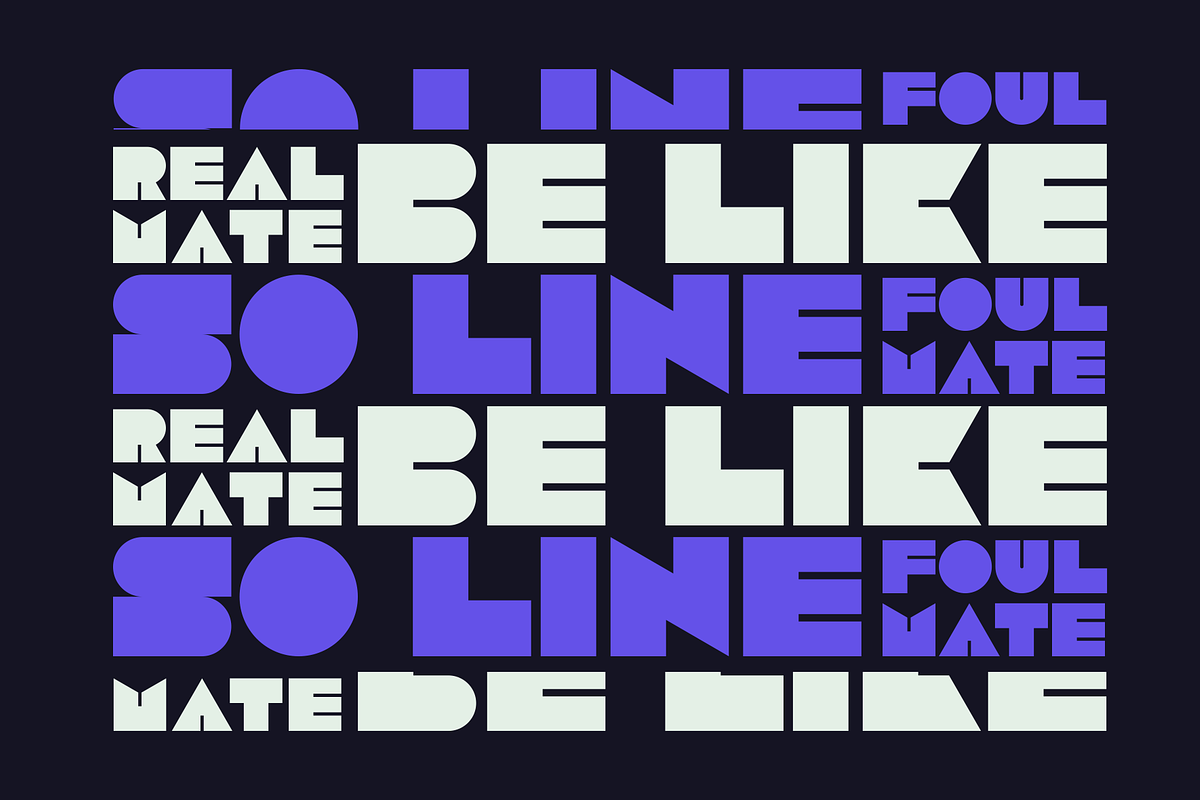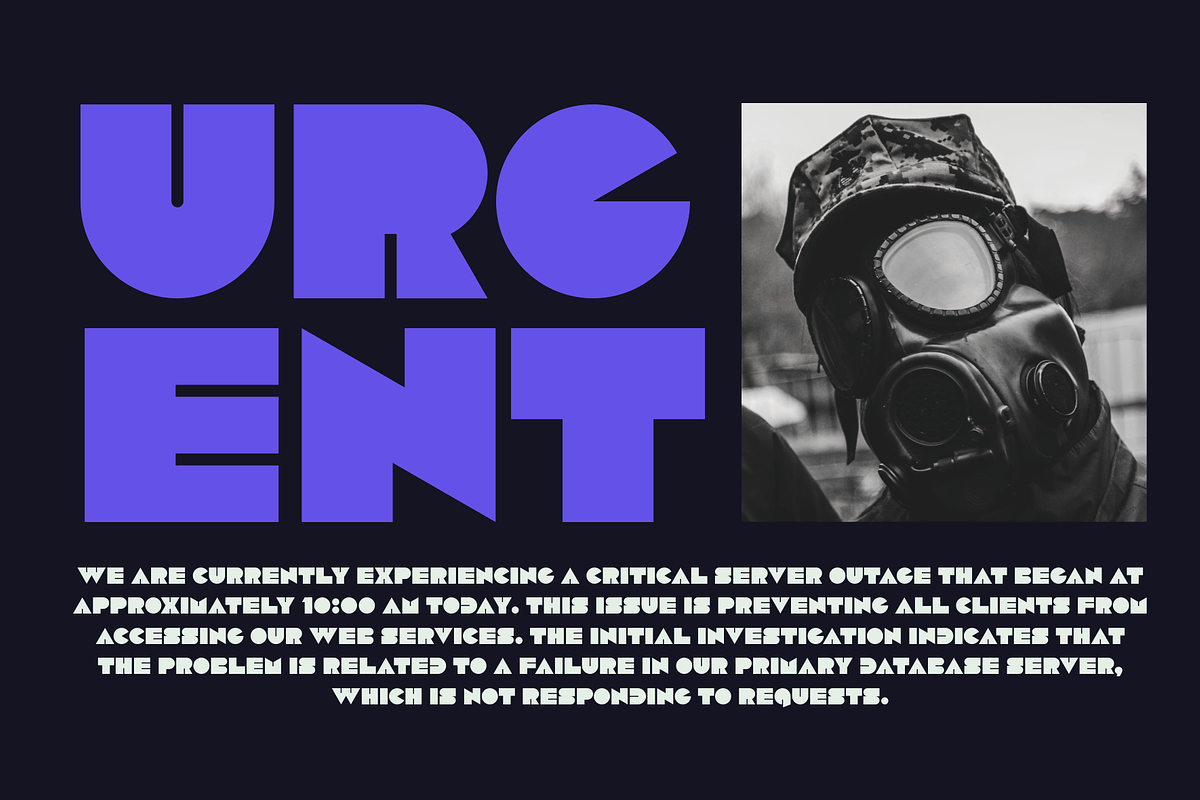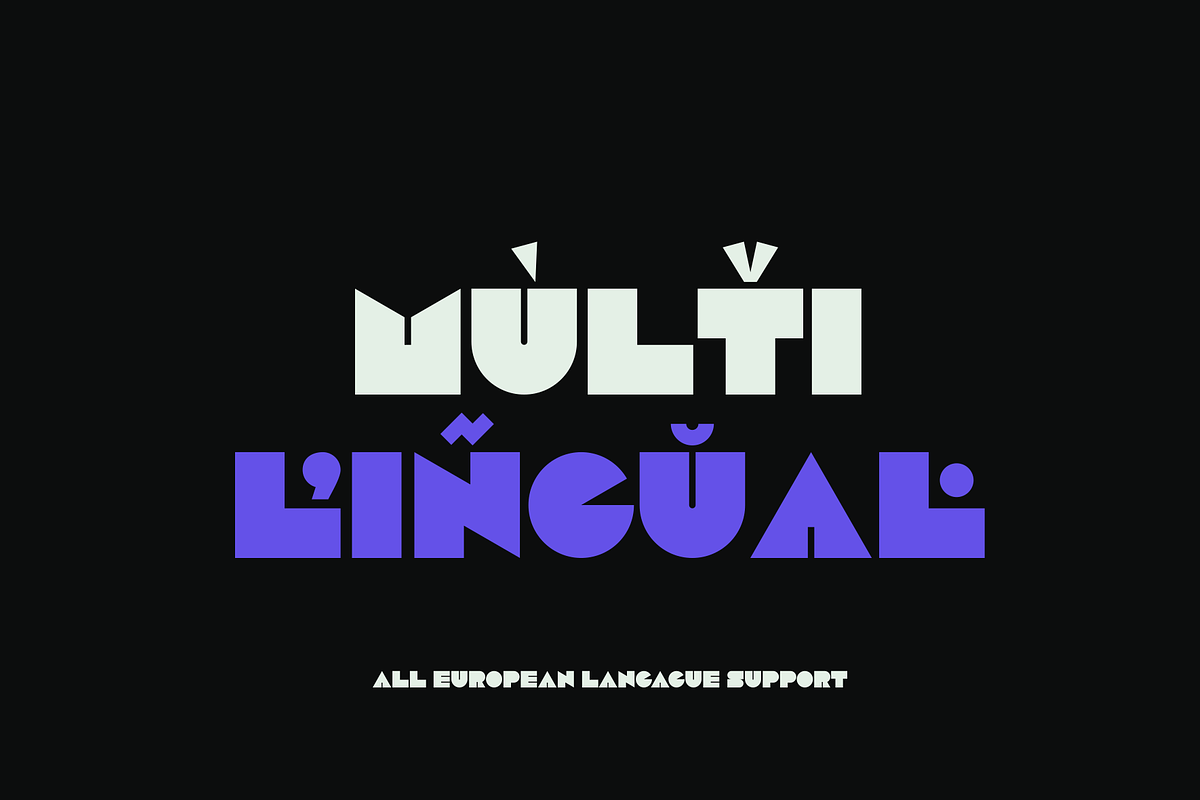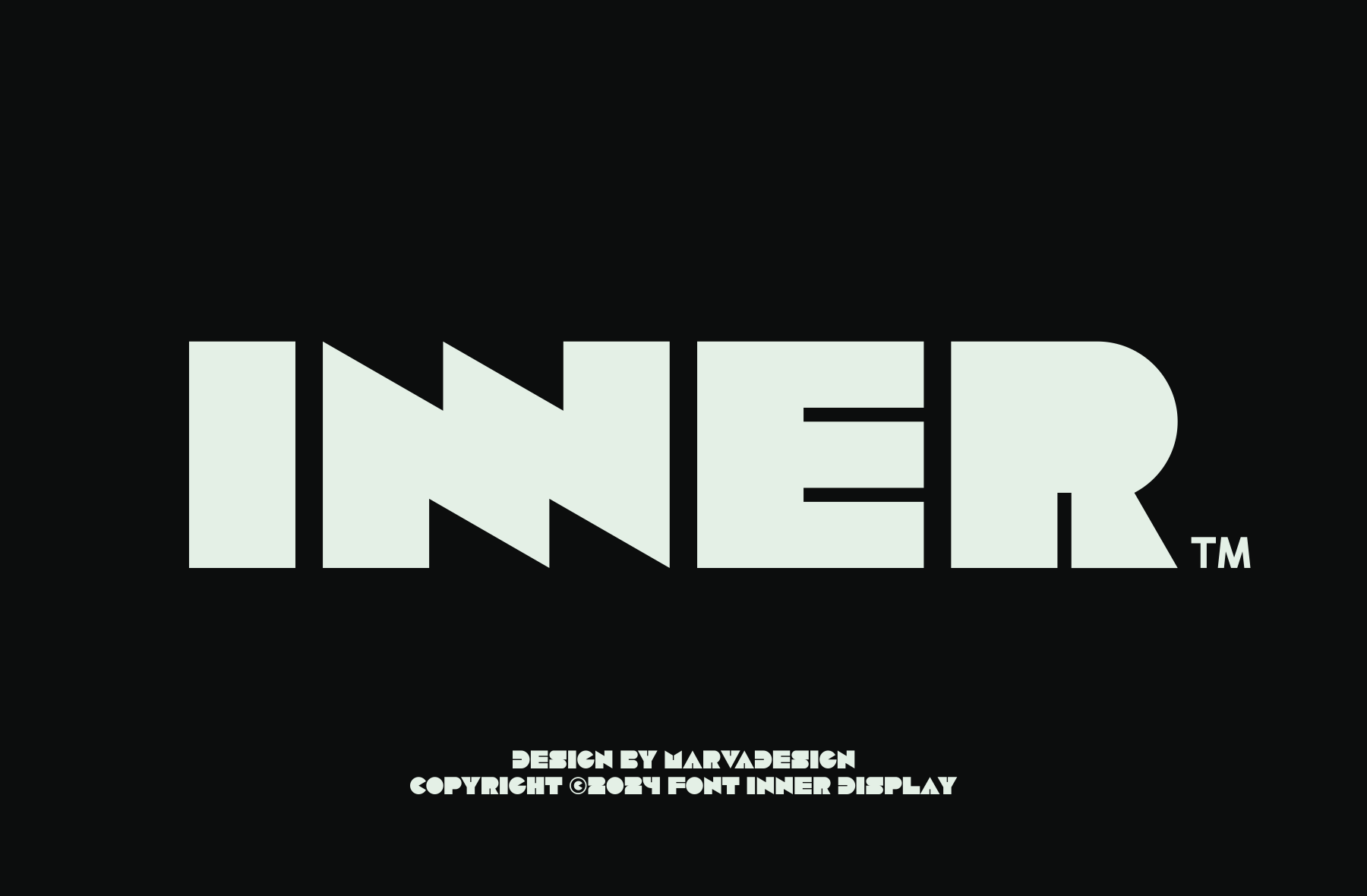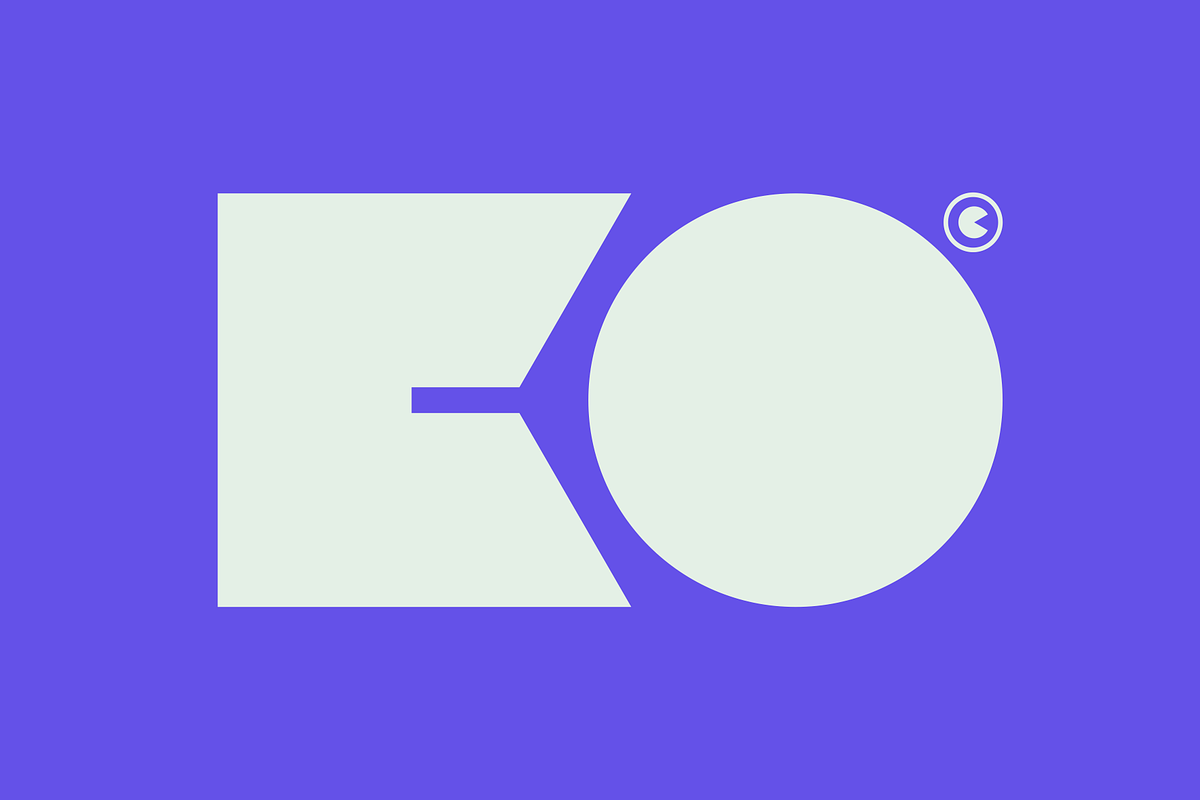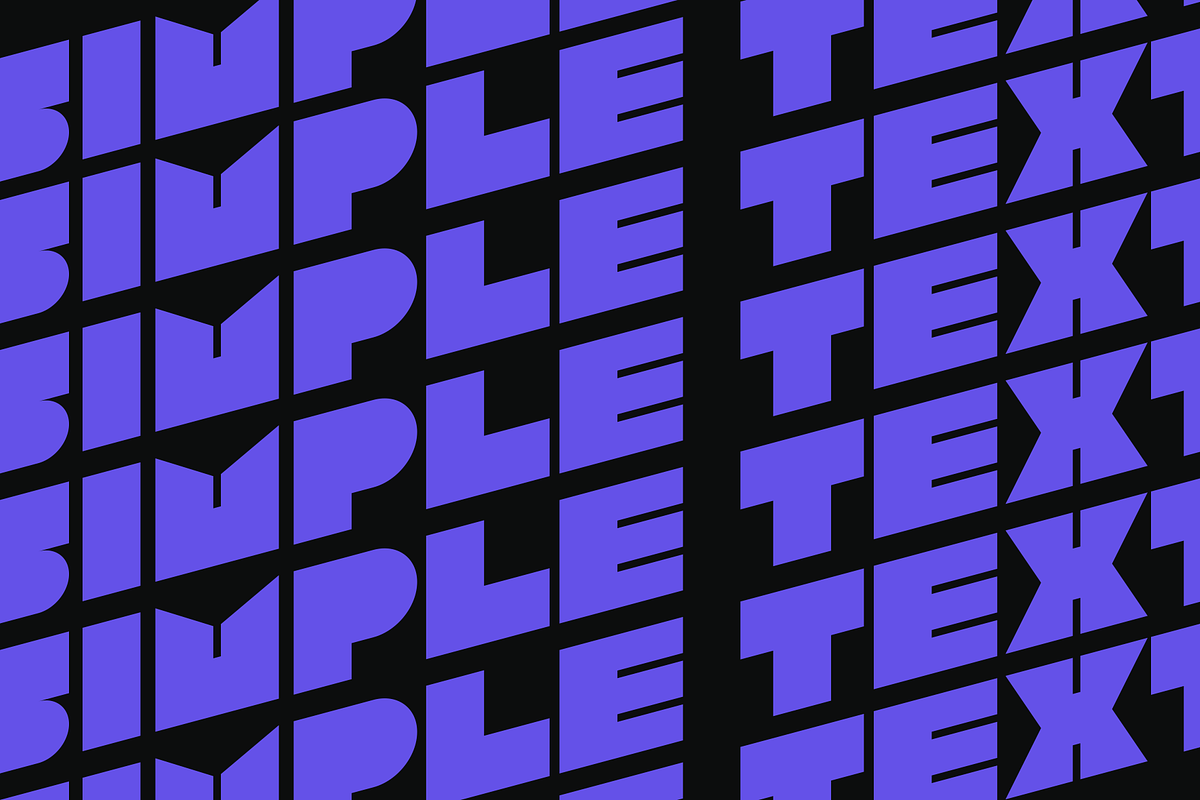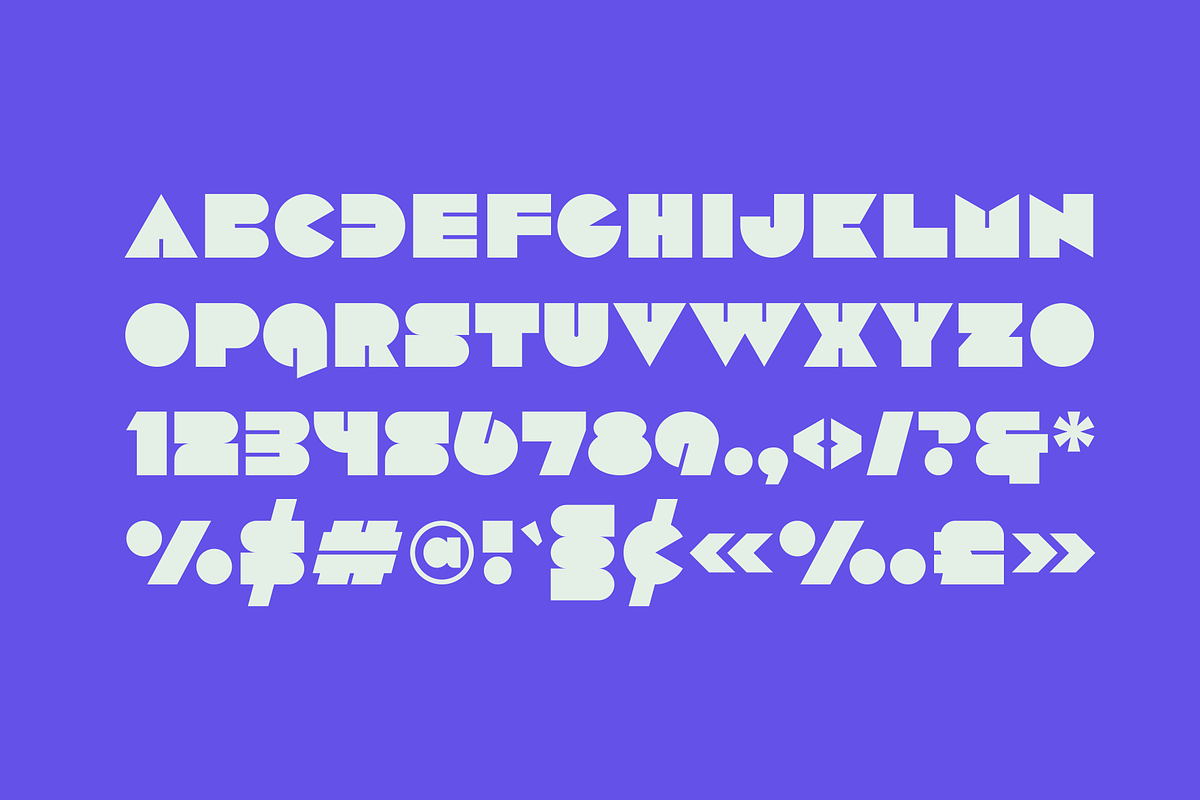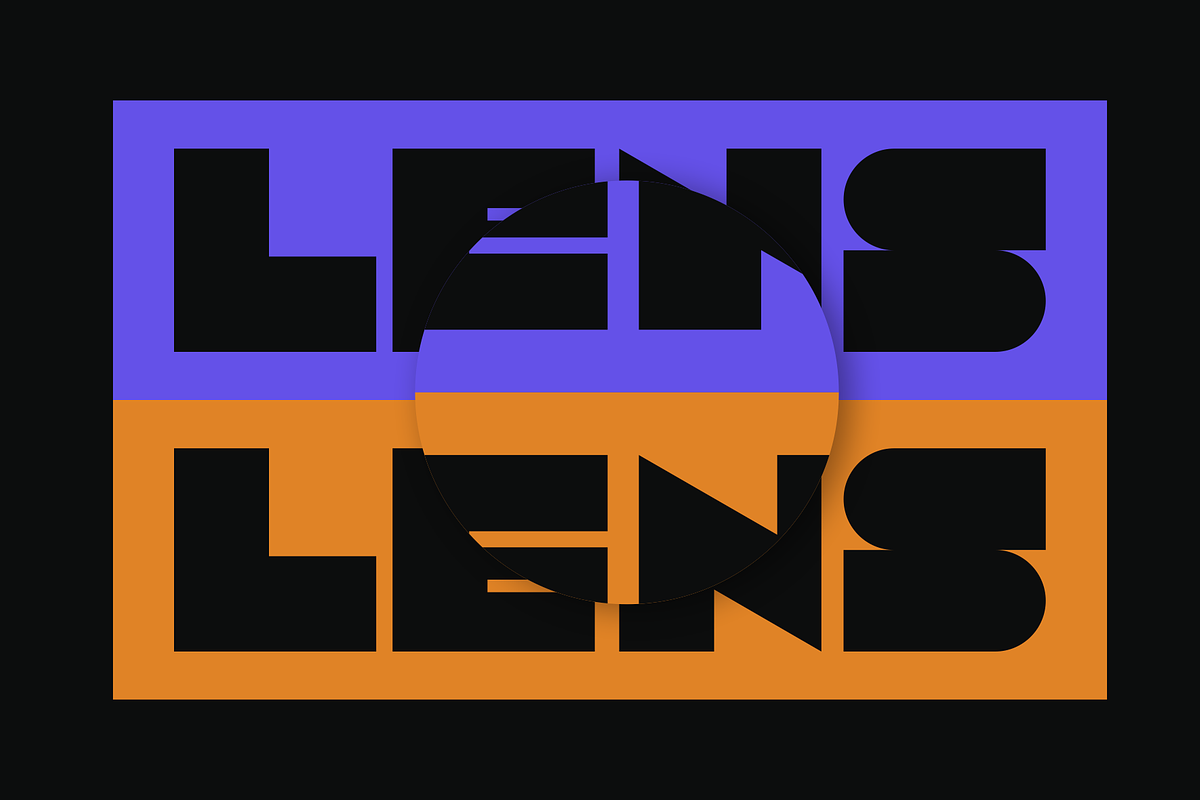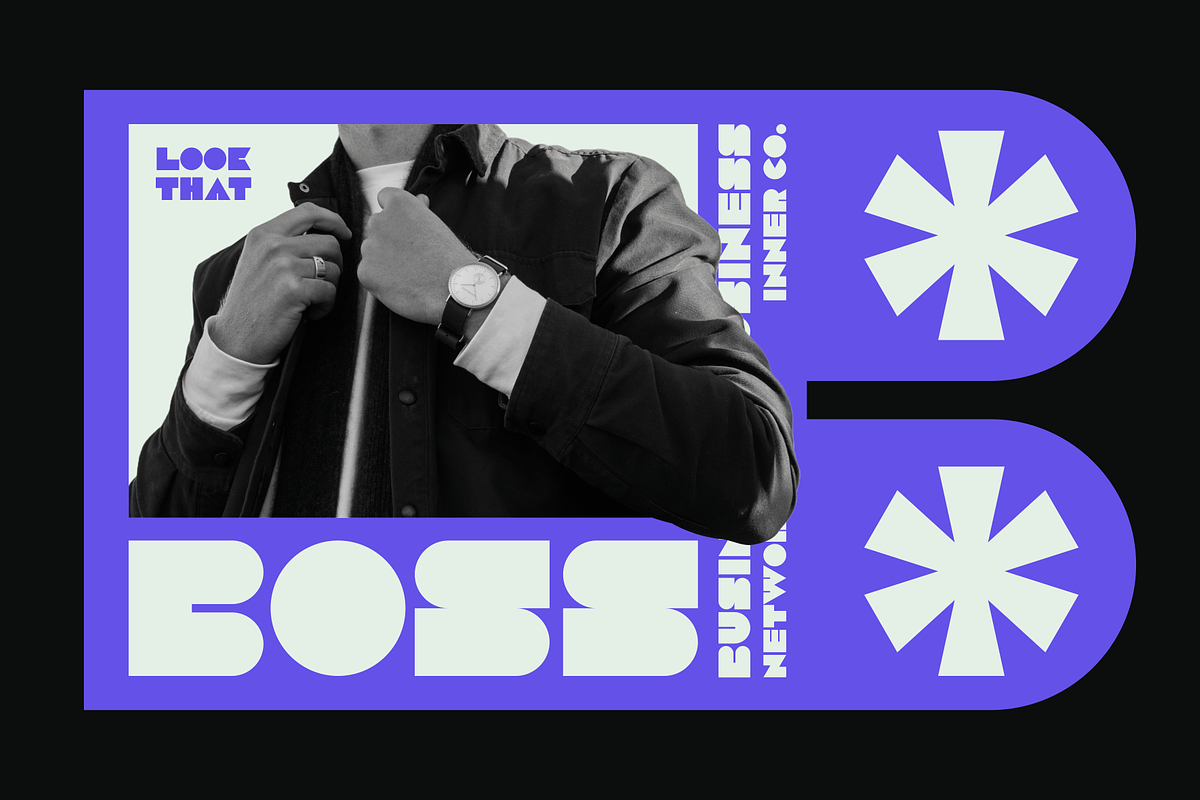
Inner Font
Introducing The font named Inner is a sans-serif typeface characterized by its bold and display-friendly style. Each letter in this font is designed to be blocky and solid, with no hollow or open spaces, giving it a unique and distinctive look. The standout feature of Inner is its modern and striking design, making it ideal for headings, posters, and other design elements that require strong visual impact. The solid and robust shapes of its characters convey a sense of strength and stability. Additionally, Inner comes with complete multilingual support, allowing it to be used for a wide range of languages and characters. This makes it a versatile choice for designers who need to accommodate different languages in their projects. Overall, Inner is an attractive option for designers looking for a font with a bold, strong aesthetic, solid characters, and extensive multilingual support.